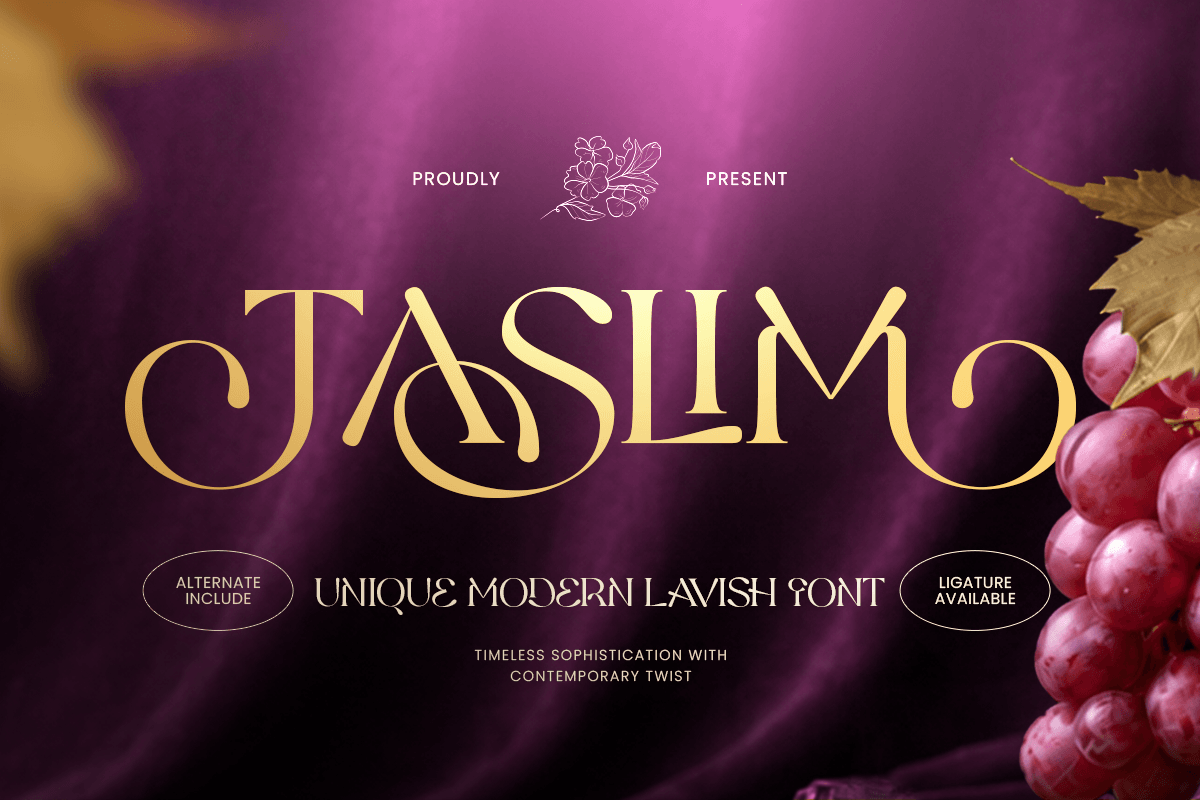
Taslim
-Unique Modern Lavish FontTASLIM – Unique Modern Lavish Font
TASLIM is a unique modern lavish font crafted to bring elegance, richness, and refined personality to premium design projects. With stylish letterforms, graceful proportions, and a polished visual rhythm, this typeface is perfect for luxury branding, elegant logos, editorial titles, packaging, and sophisticated visual identities.
Designed for creators who want typography with both uniqueness and high-end appeal, TASLIM blends modern aesthetics with lavish decorative charm. Its distinctive shapes help every wordmark, headline, and brand composition feel memorable, exclusive, and beautifully refined.
Whether used for fashion labels, beauty brands, boutique packaging, wedding stationery, or premium marketing visuals, TASLIM delivers a luxurious and stylish impression across both print and digital media.
TASLIM – Unique Modern Lavish Font Features
Unique modern font with lavish and elegant character
Perfect for luxury branding, logos, editorials, and premium packaging
Stylish letterforms with refined visual proportions
Ideal for fashion, beauty, wedding, lifestyle, and boutique industries
OpenType features for enhanced typographic styling
Create a lavish and memorable identity with TASLIM – the perfect modern font for luxury branding, elegant packaging, and refined editorial design. ✨